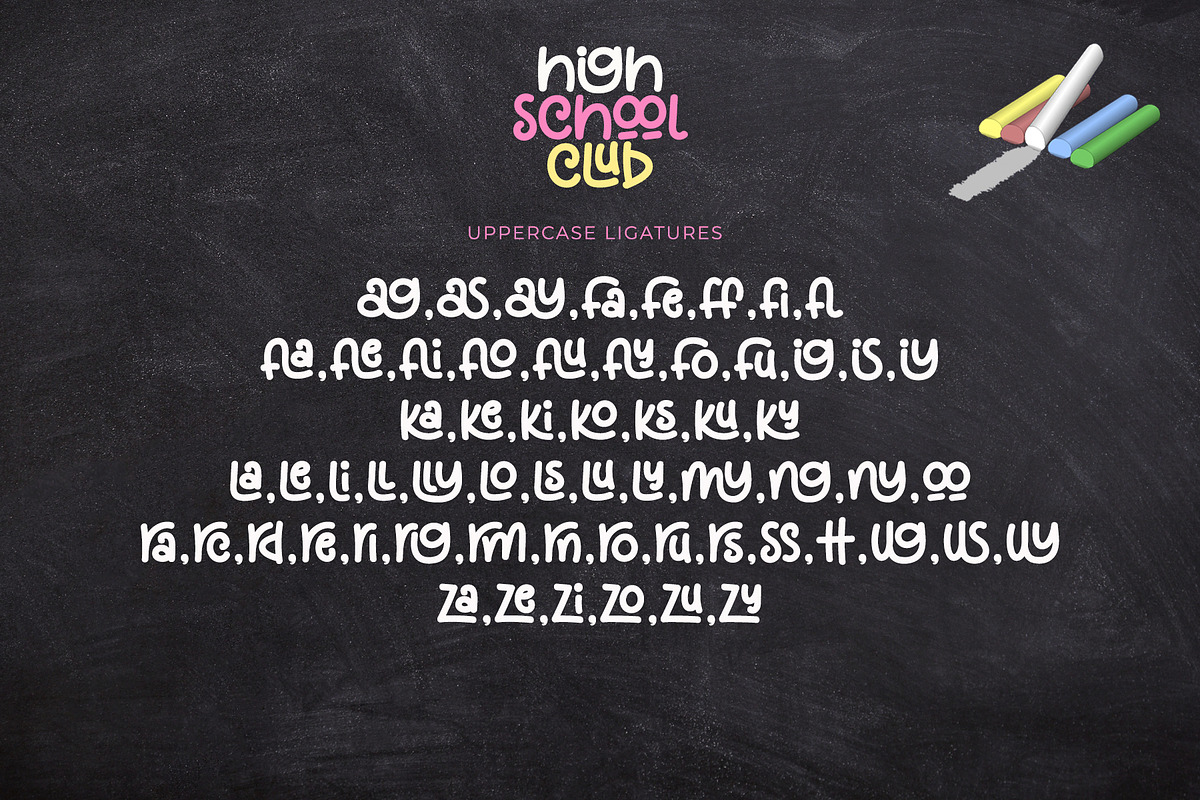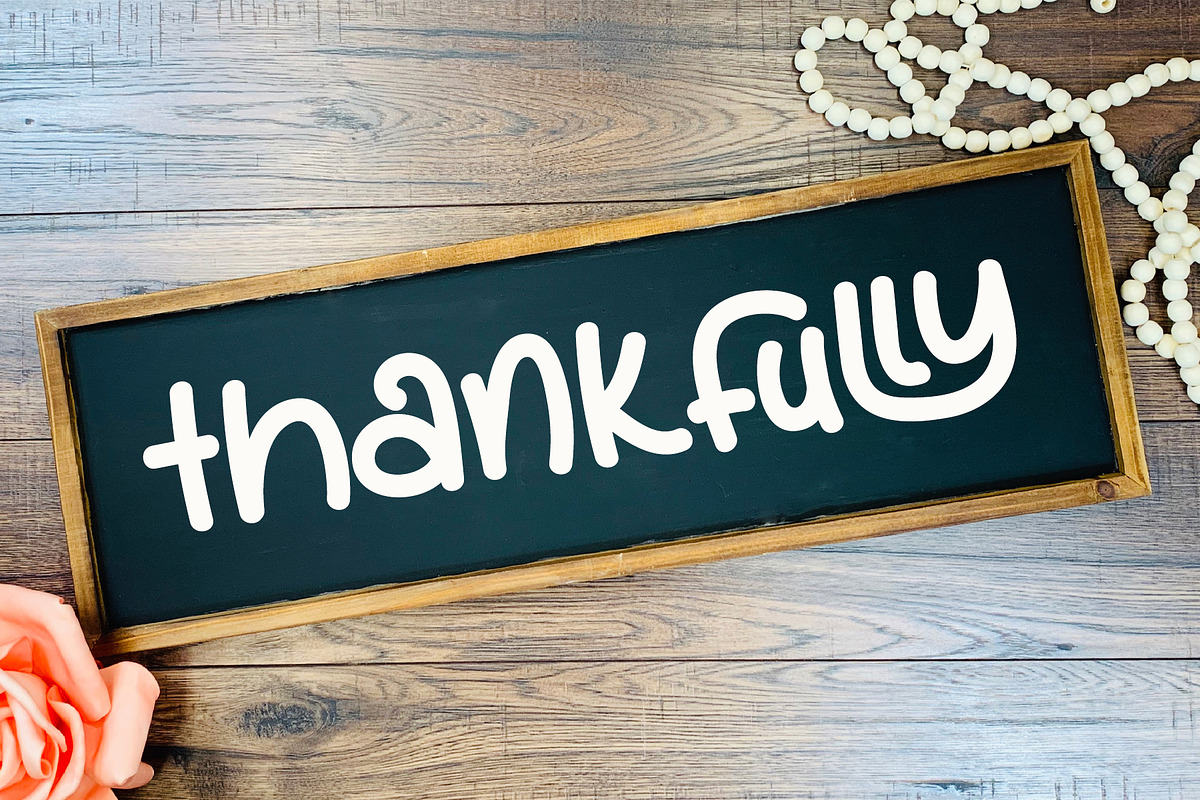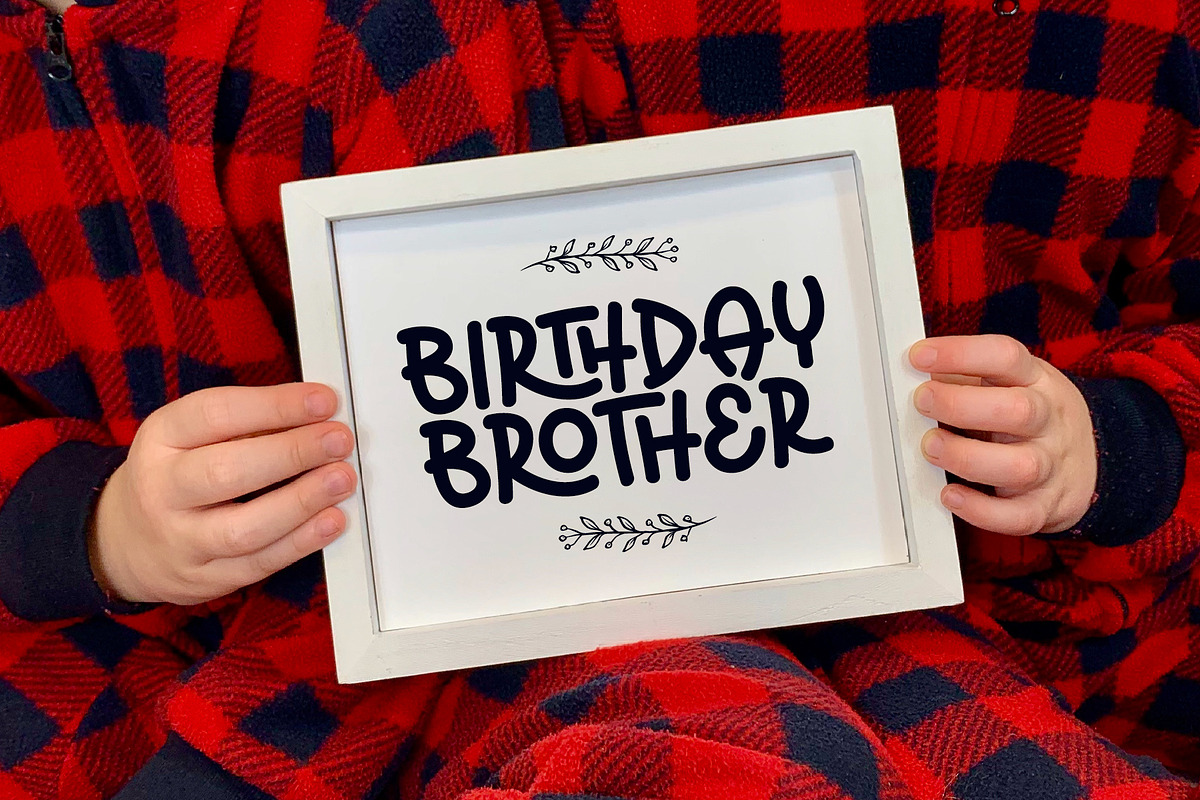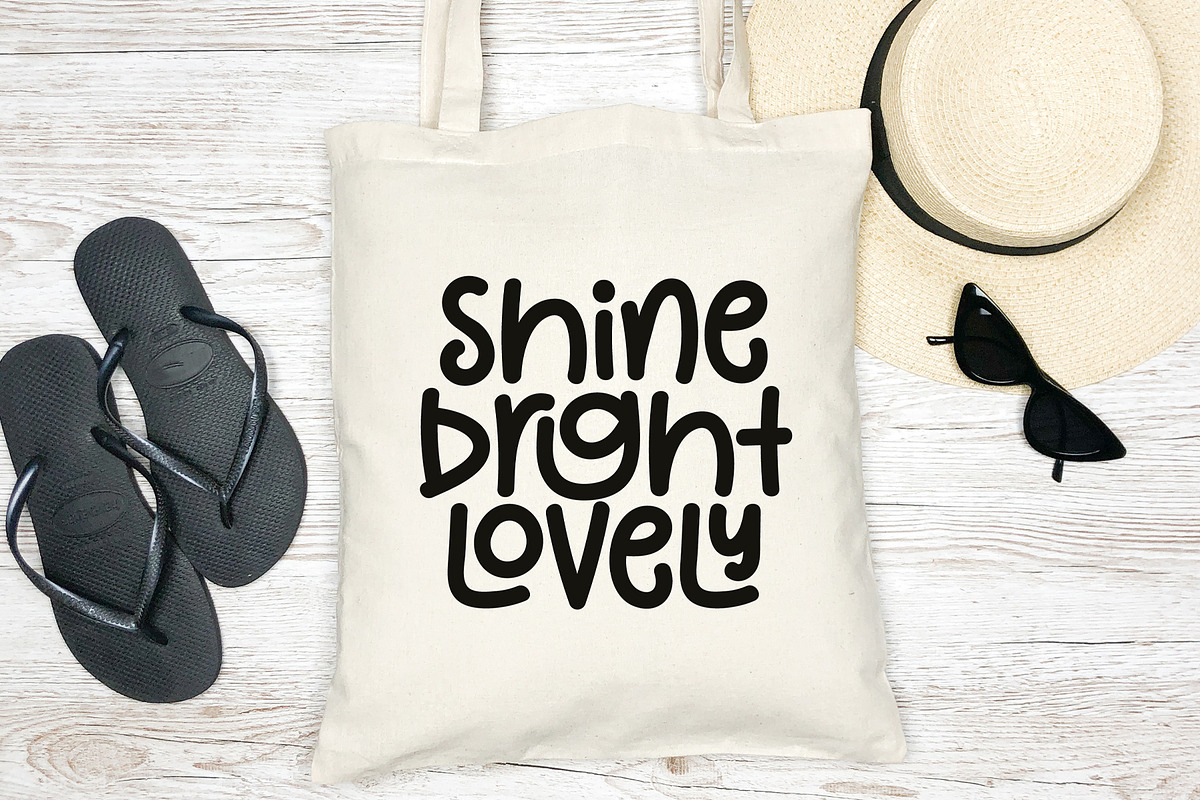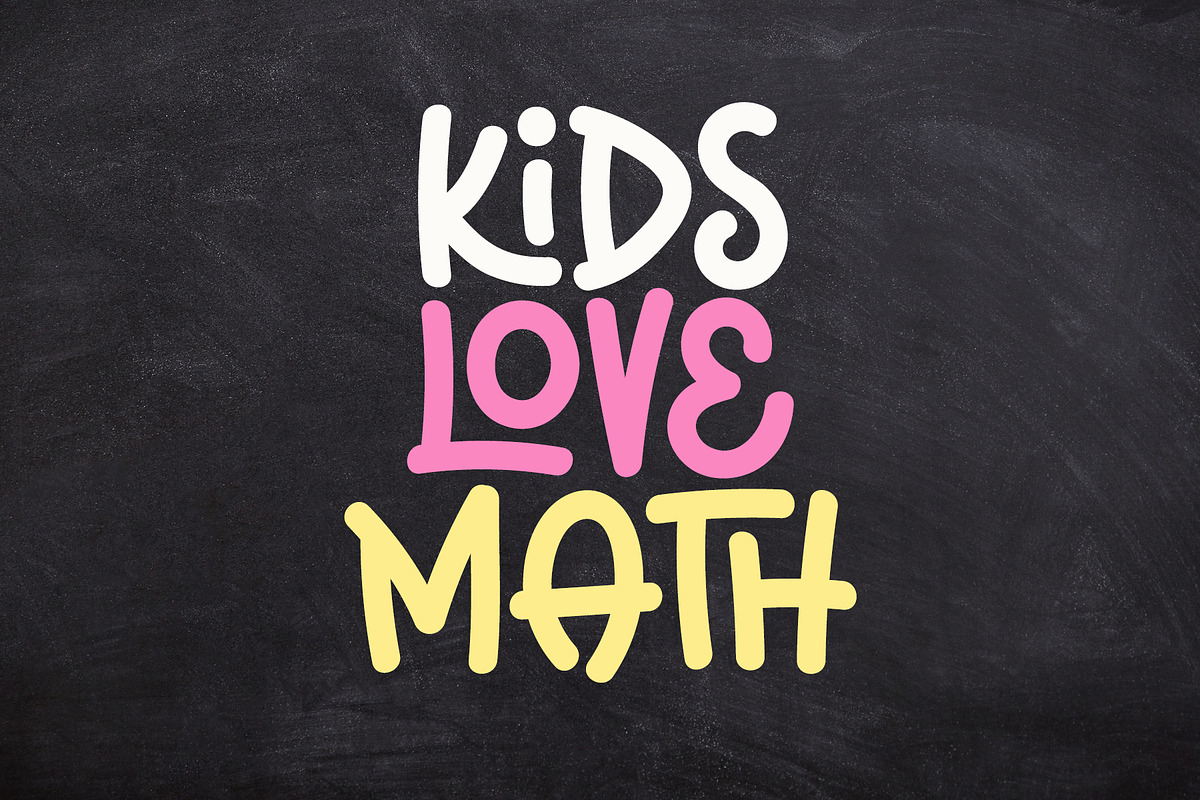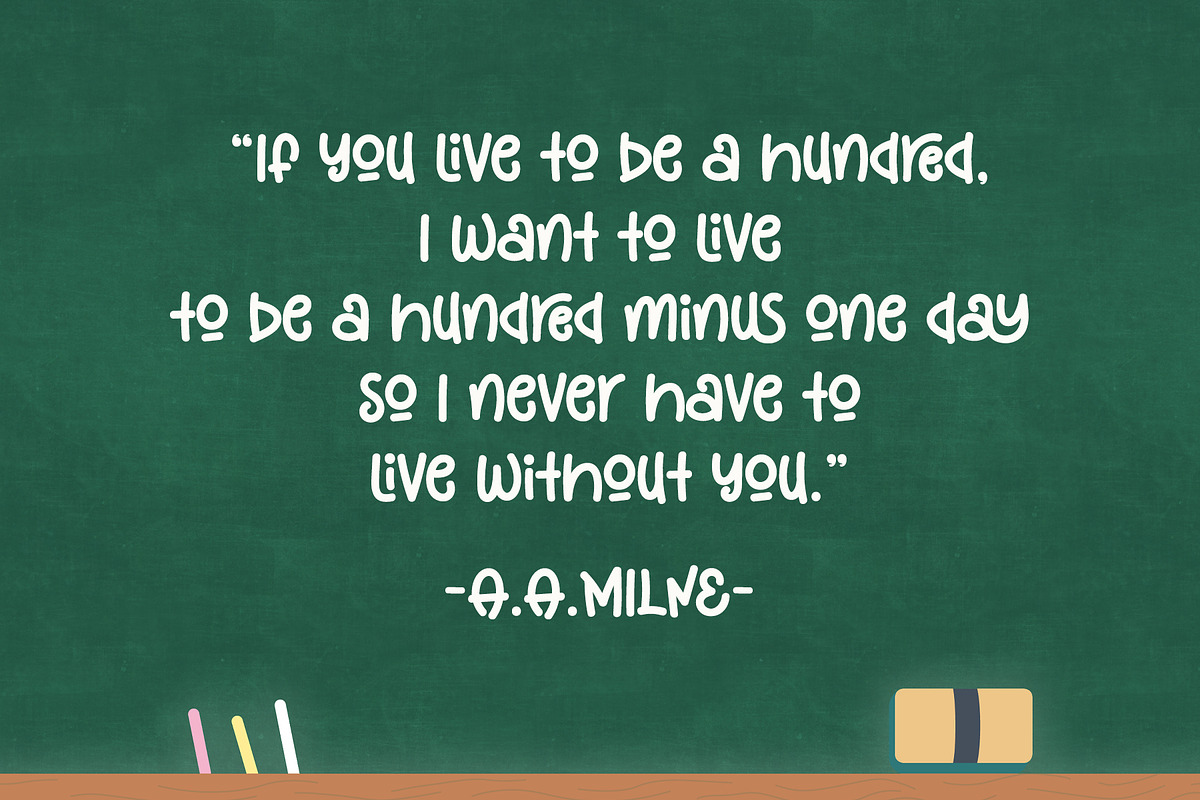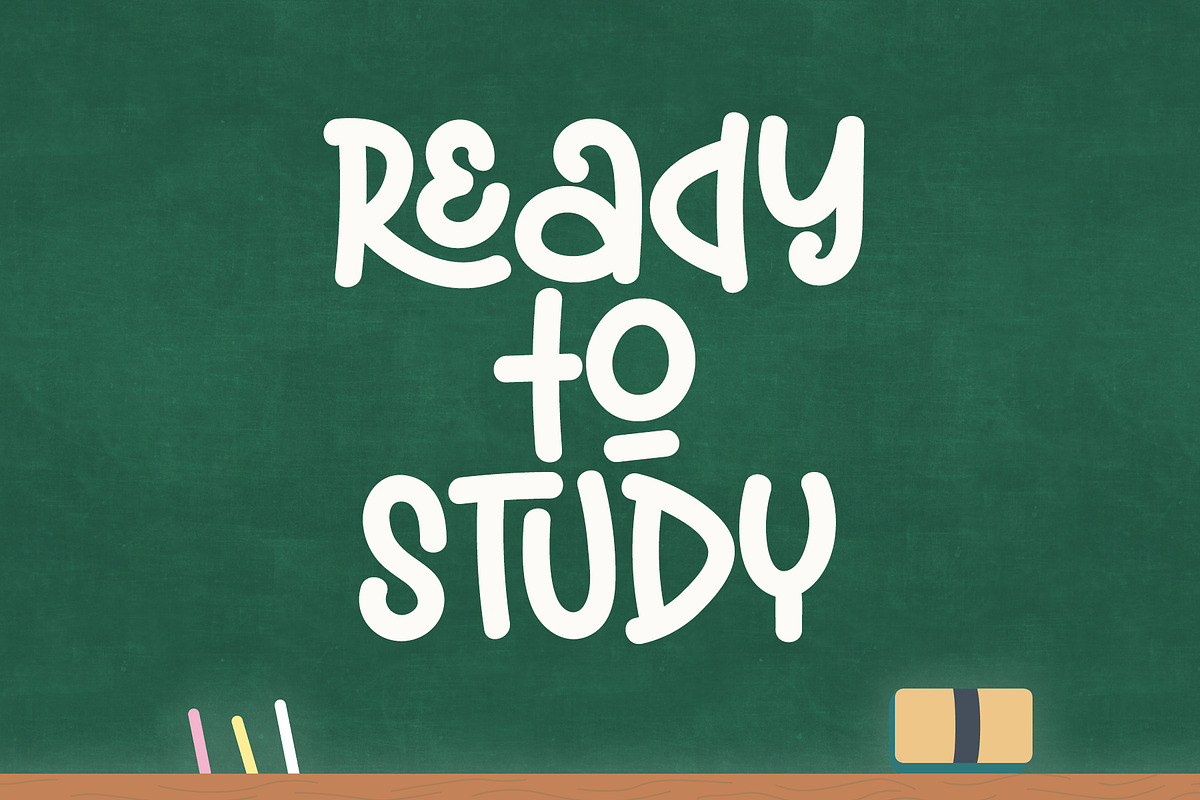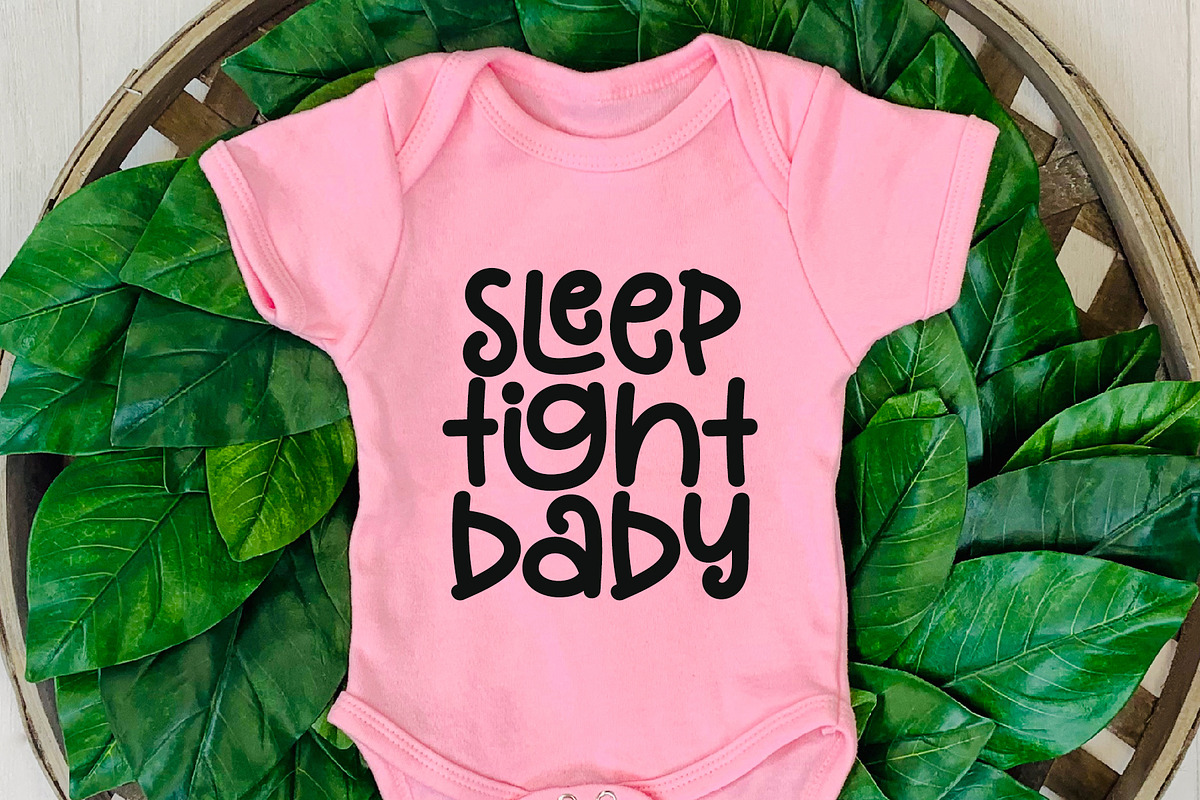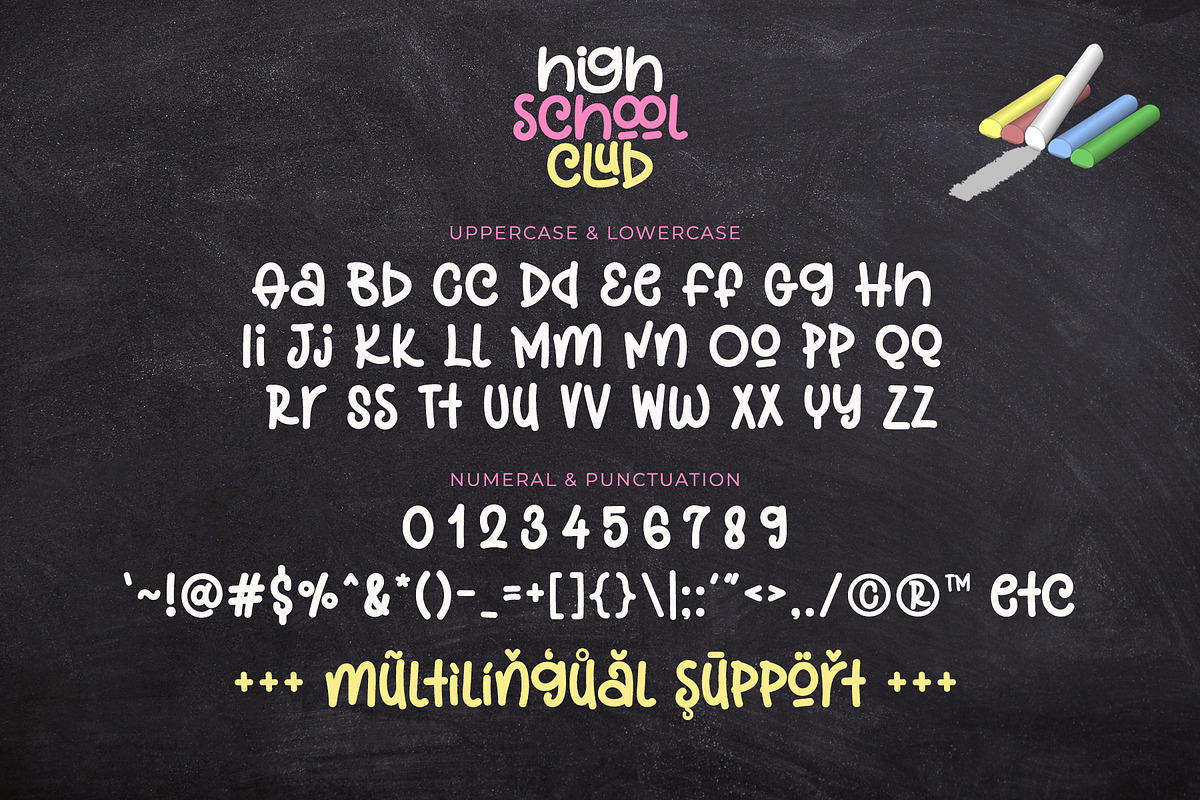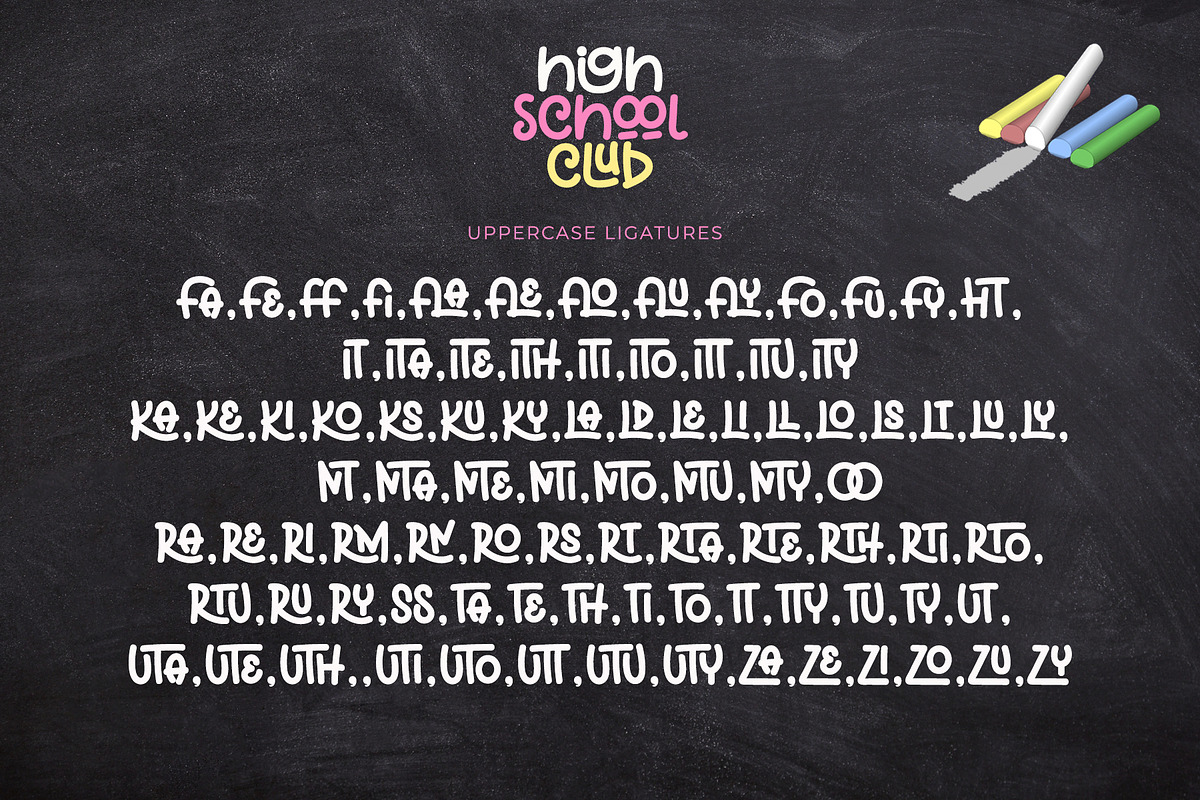
High School Club - Cute Font
High School Club is cute and fun handwriting font. It is whimsical, pretty, and playful. It has lots of ligatures for uppercase and lowercase to give more options in designing.
This font is adorable font for design that needs cute and playful touch, such as back to school design, kids design, birthday invitation, summer design, t-shirt design, crafting, sticker, sublimation, and many more.
- Uppercase & Lowercase (with ligatures)
- Most Multilingual Accent